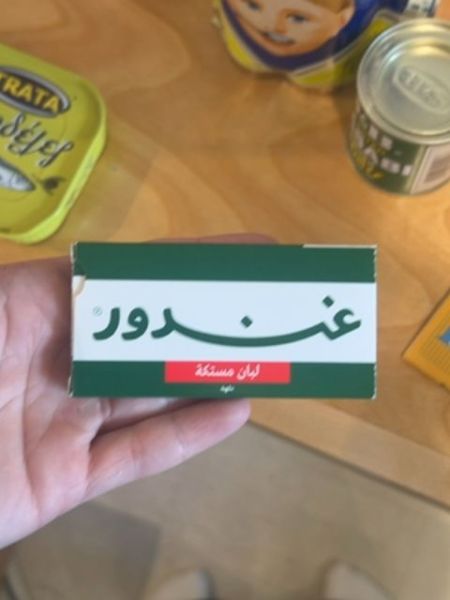
The typography in the image uses a bold, rounded font, which conveys a sense of friendliness and approachability. The font size is large and clearly legible, ensuring that the product name stands out prominently against the contrasting background, making it easily identifiable for consumers.
The packaging is compact and rectangular, featuring a dominant green color scheme with a bold white center stripe where the main text is displayed. There is an additional red section at the bottom that seems to capture attention, providing contrast to the overall design.